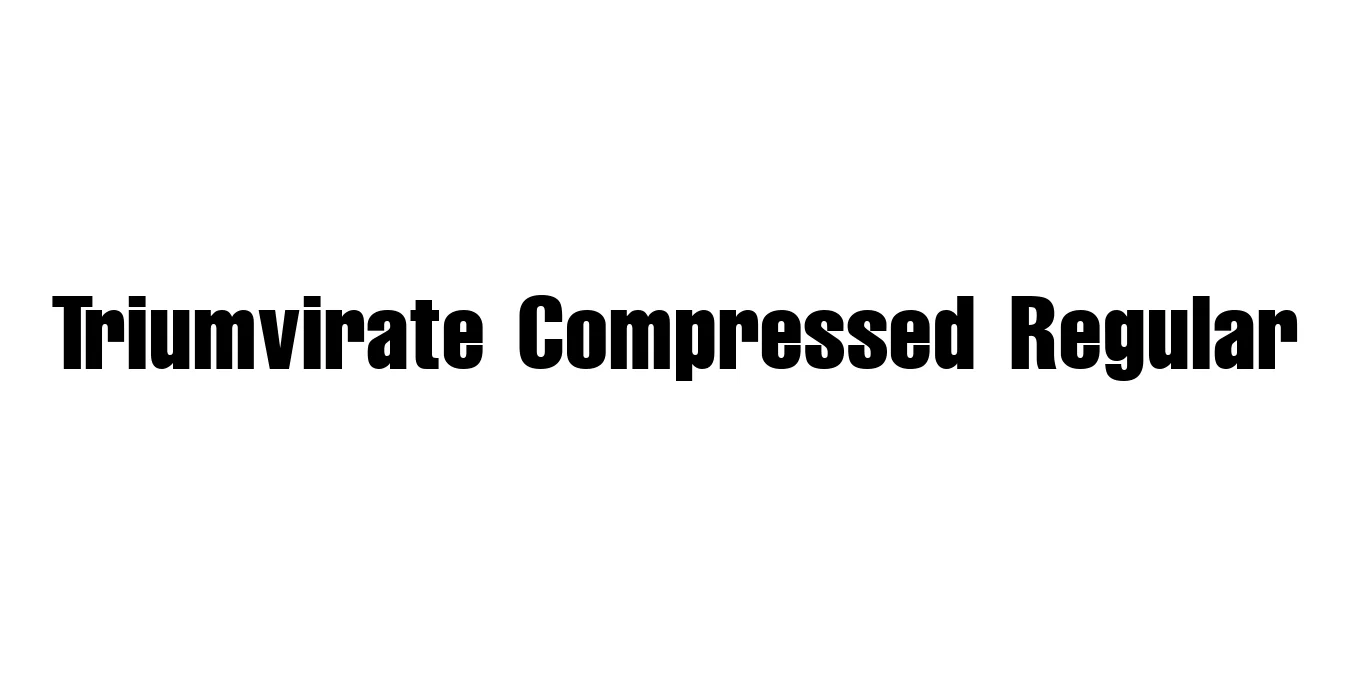
Triumvirate Compressed Regular
Designed by Compugraphic Design Team
Triumvirate Compressed Regular is a neo-grotesque sans-serif typeface that was originally developed by Compugraphic. Created as a robust alternative to Helvetica, the Triumvirate family was designed to provide a neutral, objective aesthetic that prioritizes legibility and functional efficiency. The compressed version, in particular, was engineered to solve the problem of limited horizontal space, allowing designers to set large, impactful text without overcrowding the layout.
This typeface is characterized by its narrow proportions and clean, geometric lines. It has served as a staple in the advertising and publishing industries for decades, frequently appearing in movie posters, newspaper headlines, and technical manuals. Because of its structural similarity to other classic grotesques, it offers a timeless look that bridges the gap between mid-century modernism and contemporary digital design, making it a reliable workhorse for any professional toolkit.
Triumvirate Compressed Regular Best Uses
Perfect for bold, eye-catching titles where horizontal space is limited.
Highly effective for vertical layouts and promotional film credits.
Provides a professional and organized look for minimalist branding.
Commonly used in news headlines and sidebar captions for maximum impact.